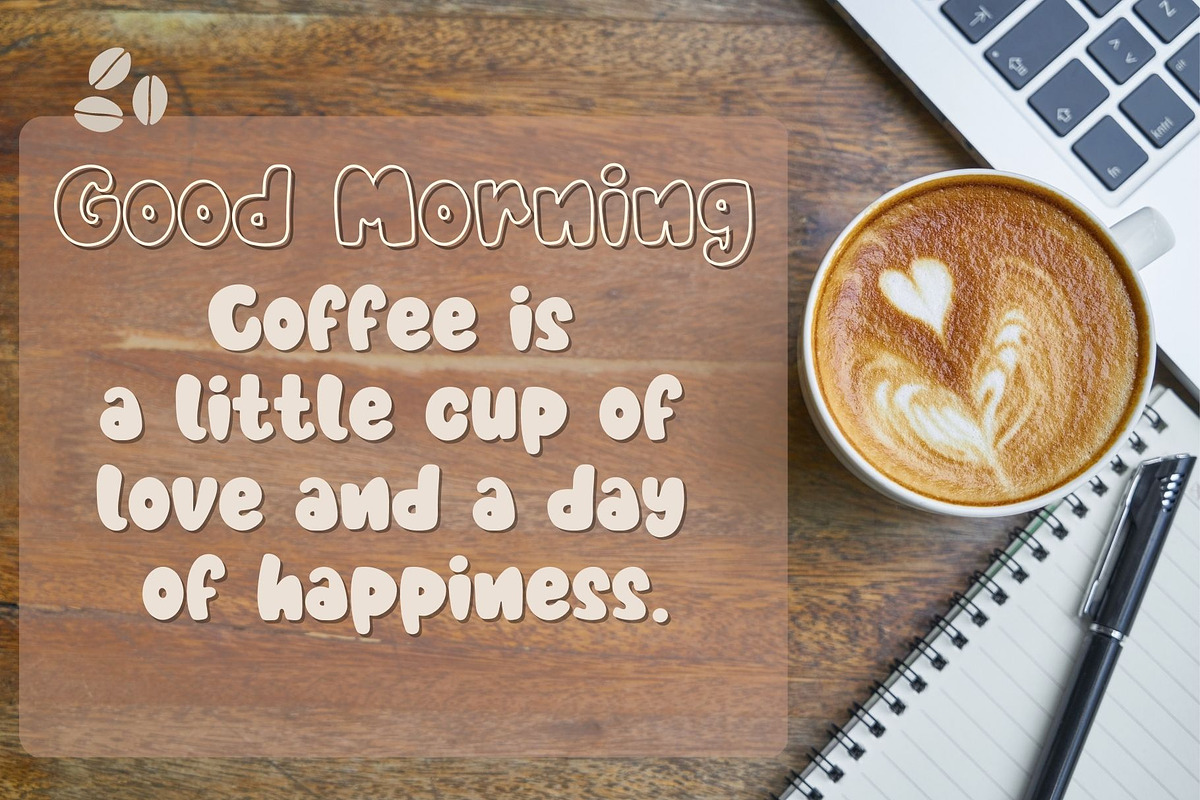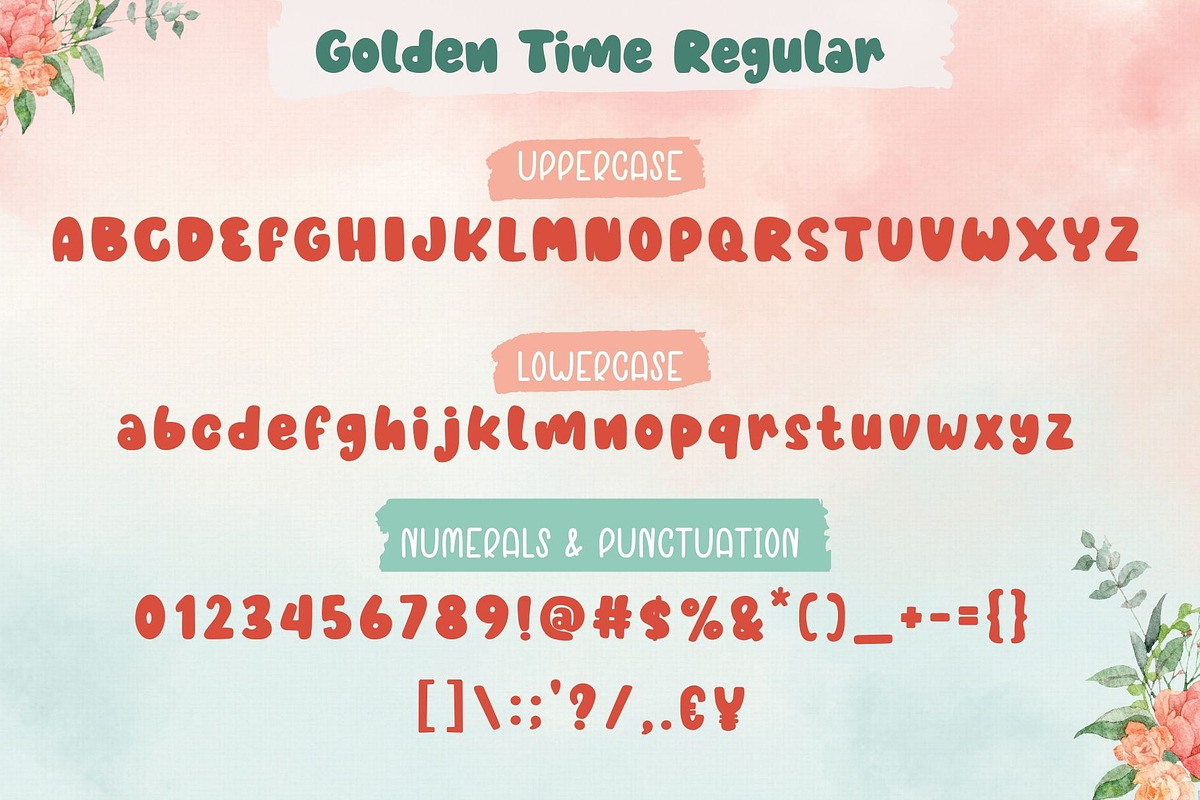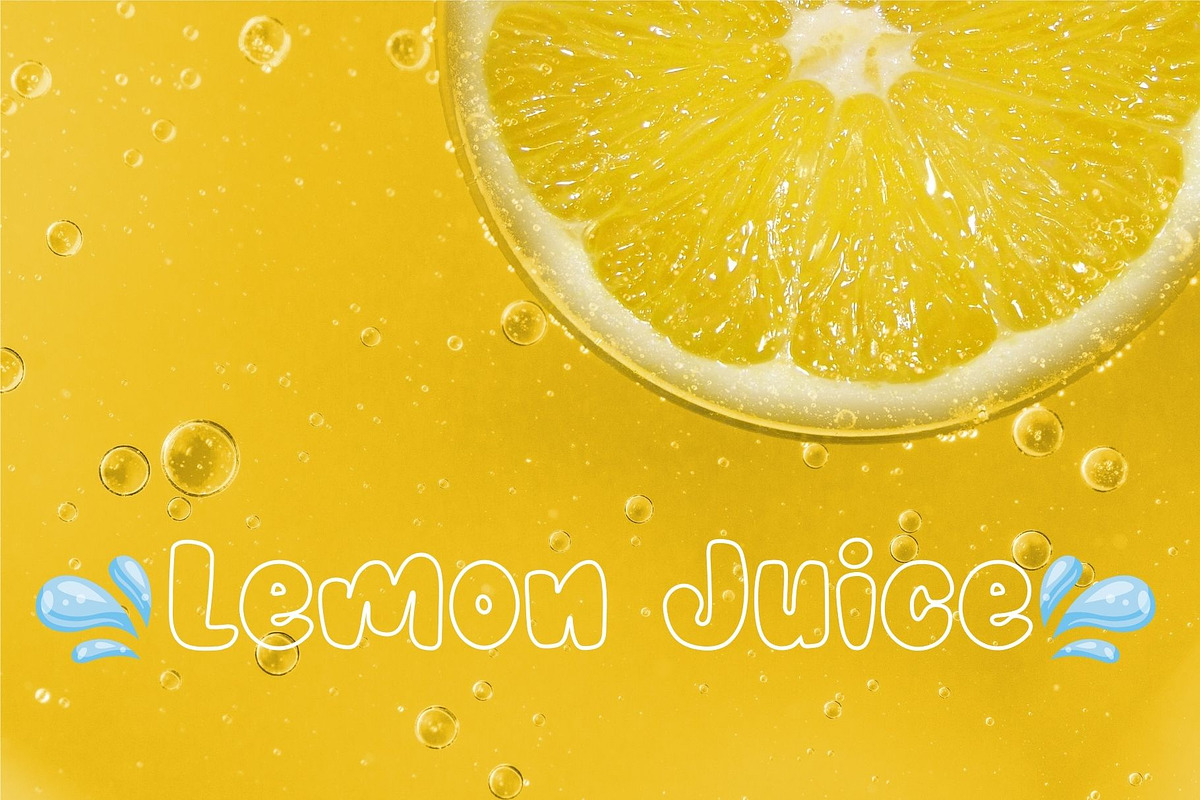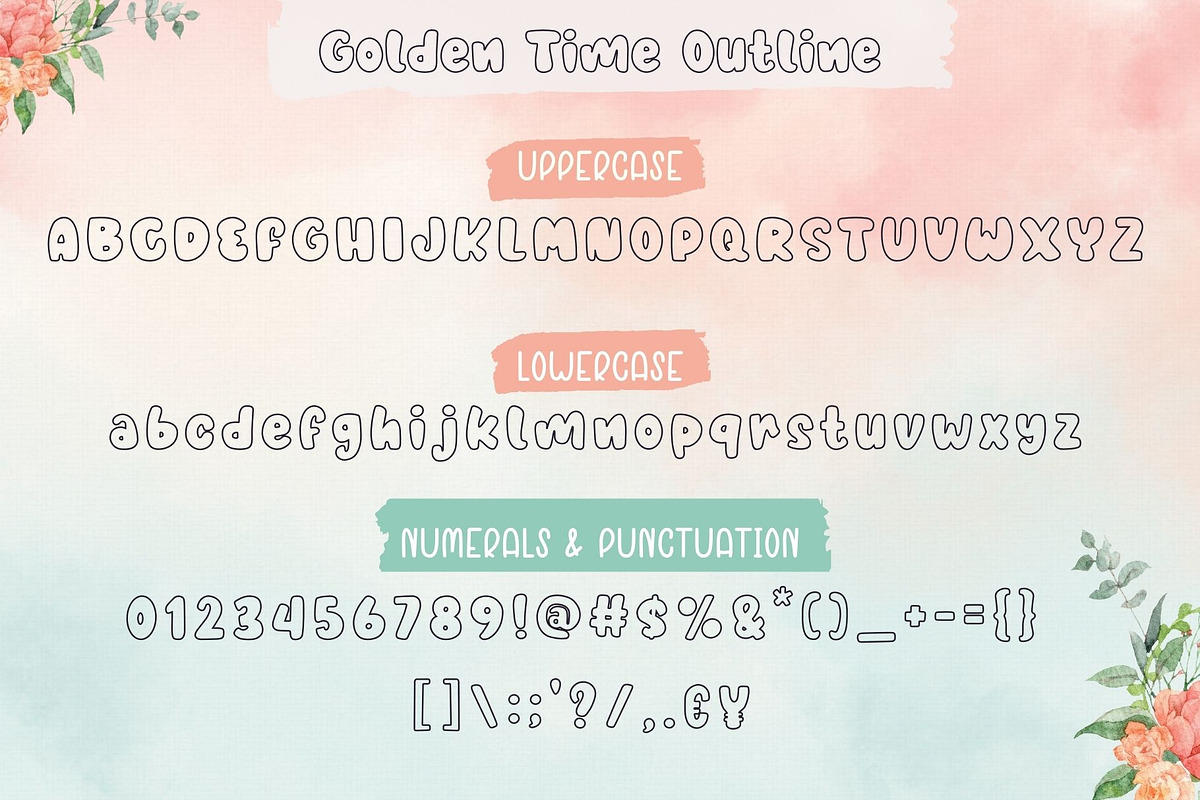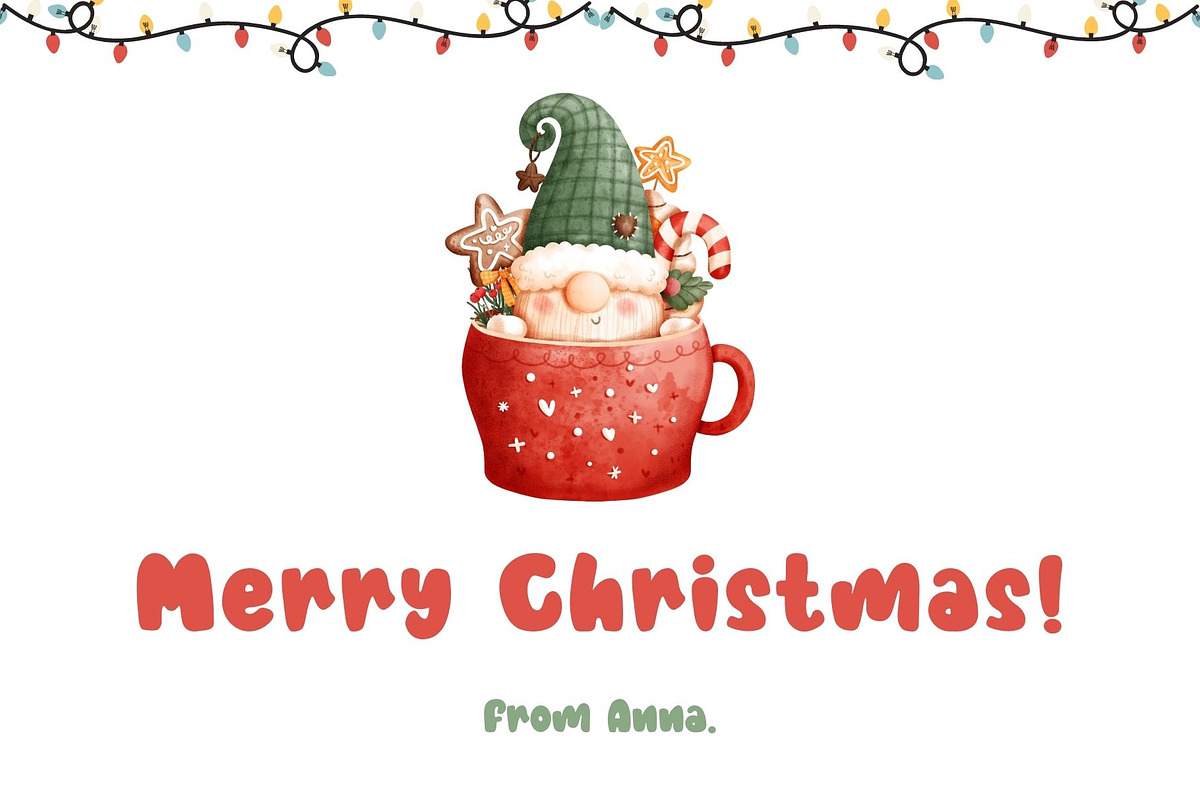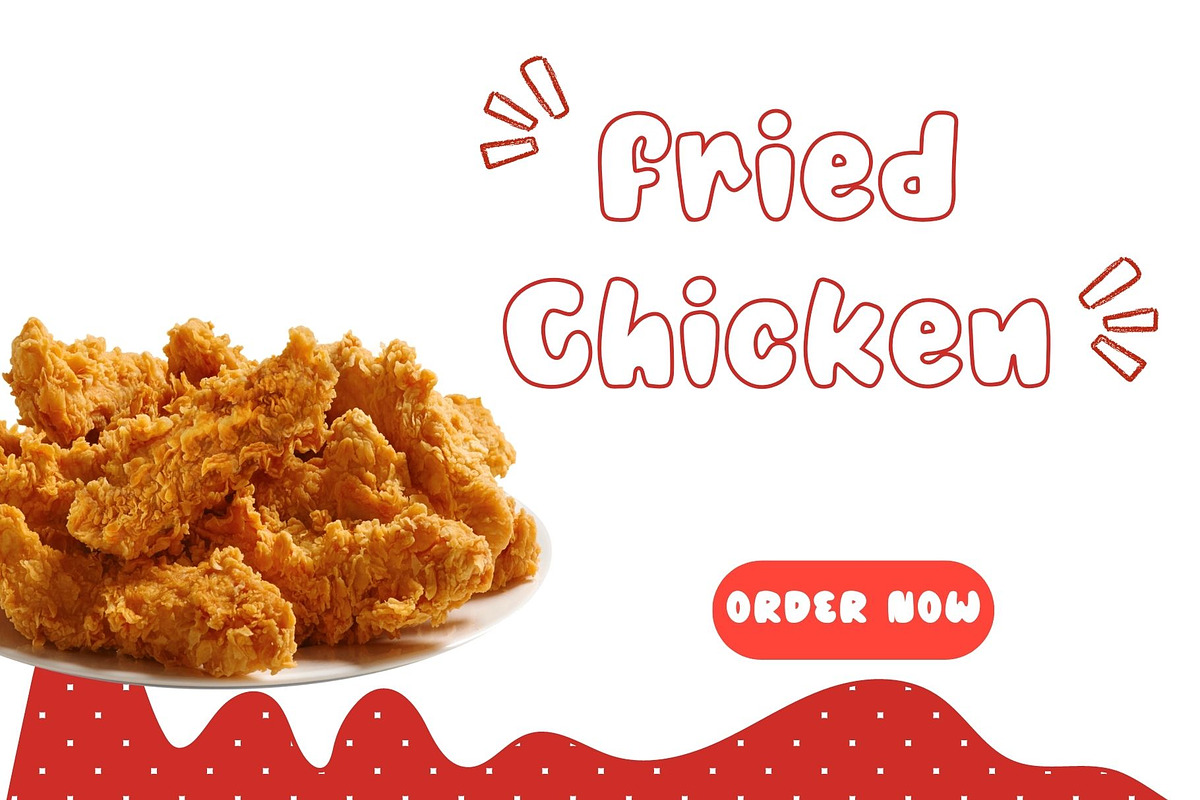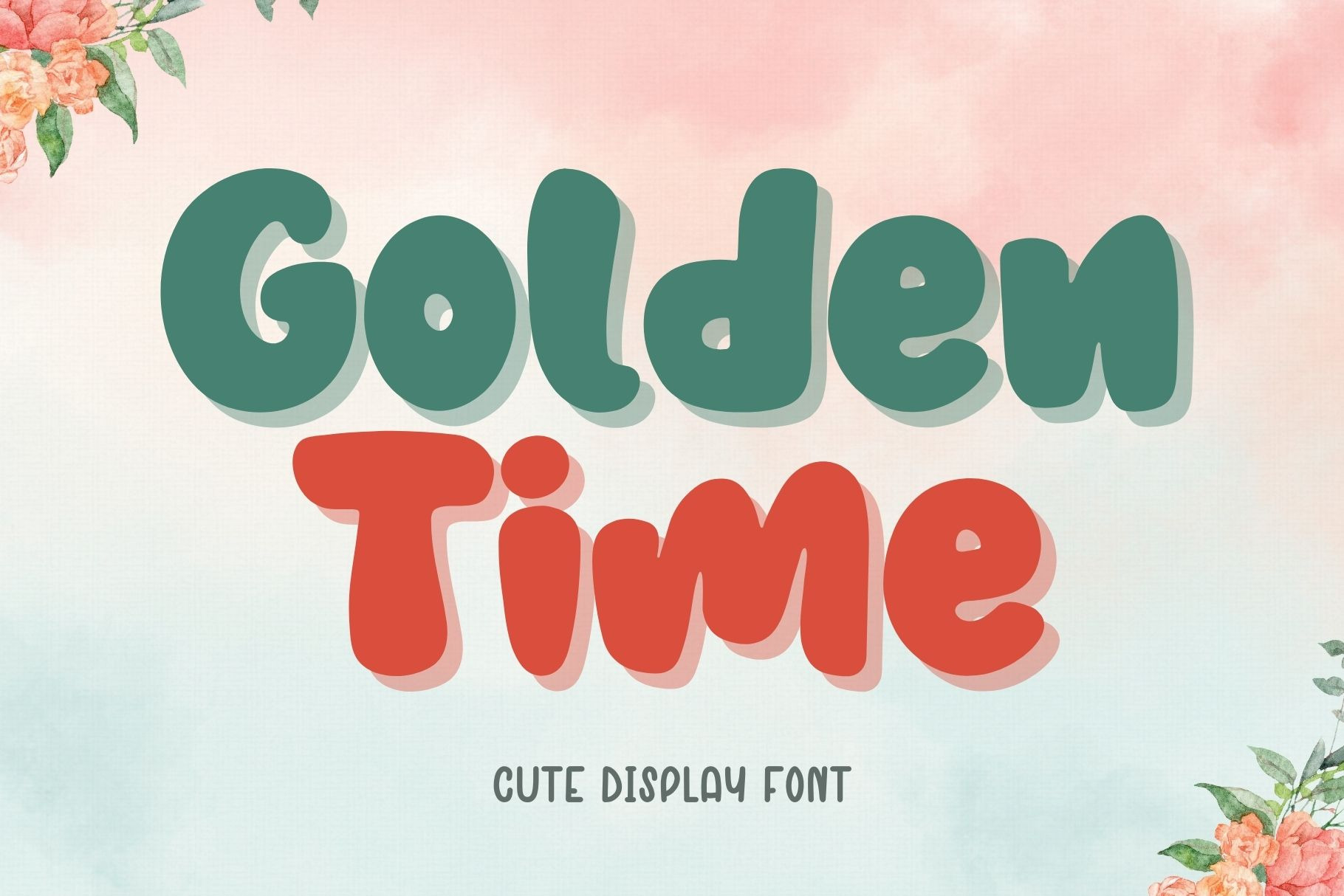
Golden Time | Display Font
Golden Time is a cute and fun display font. With its casual charm, this font is perfect for a wide pool of design ideas. No matter the topic, this font will be an incredible asset to your fonts’ library, as it has the potential to elevate any creation.